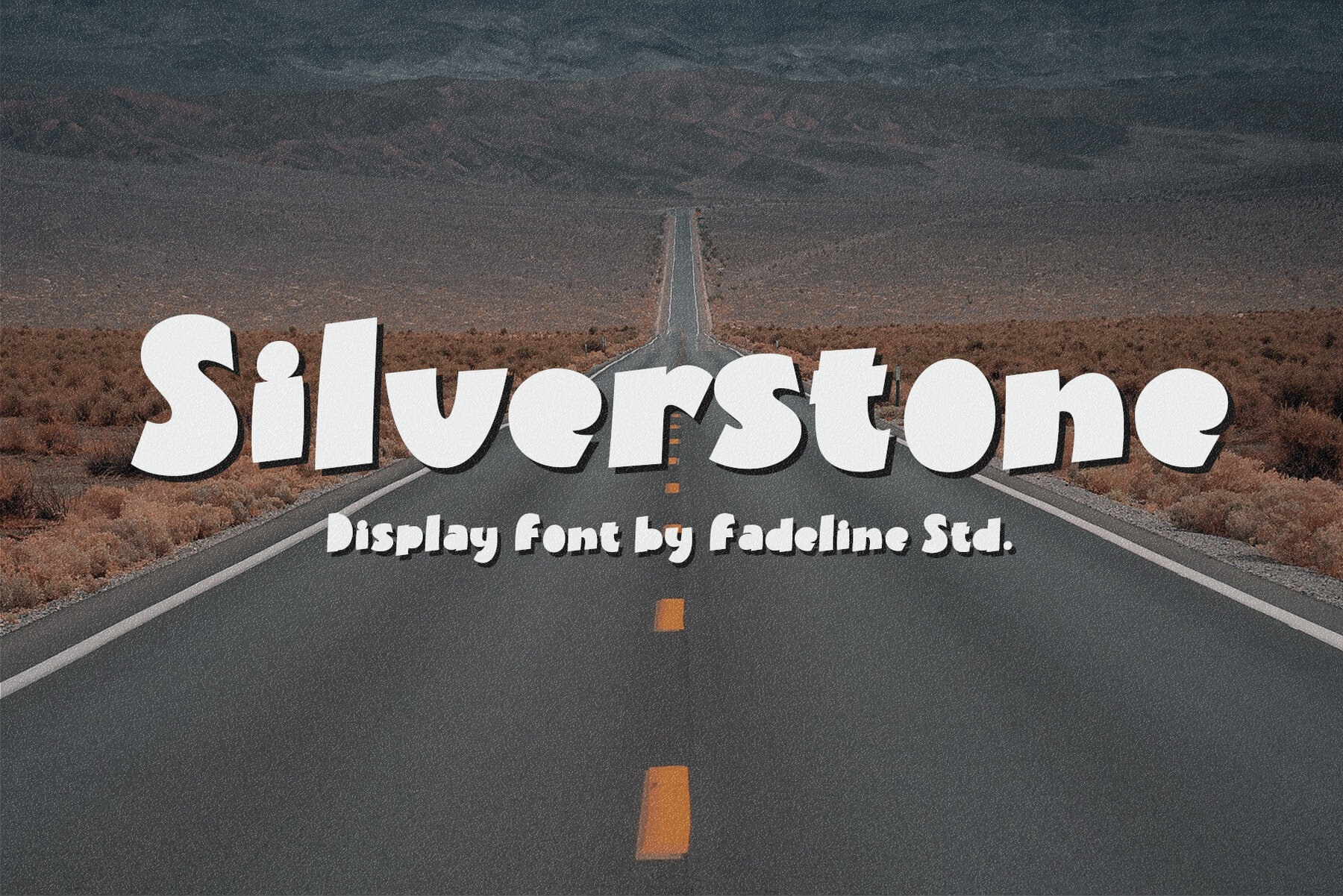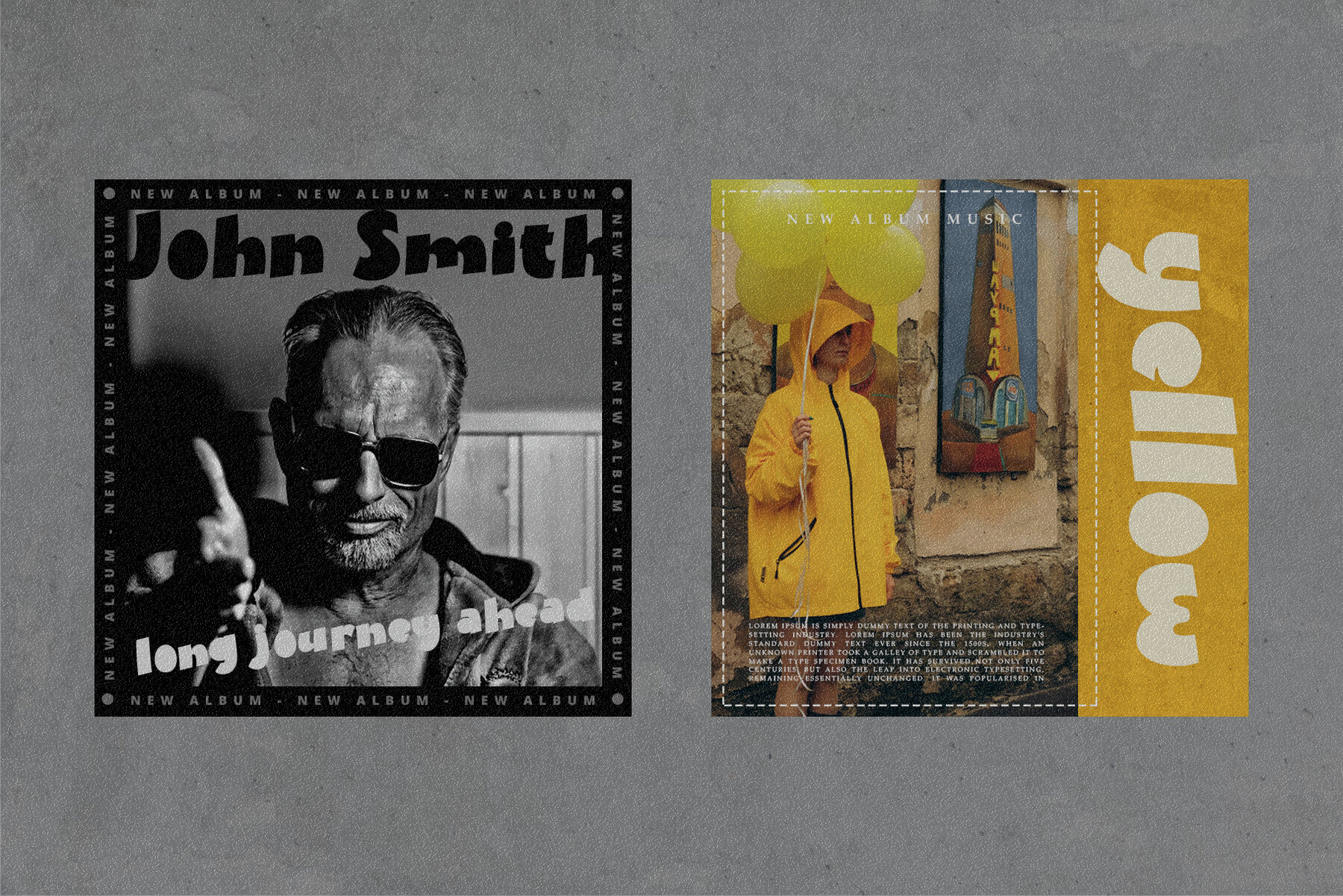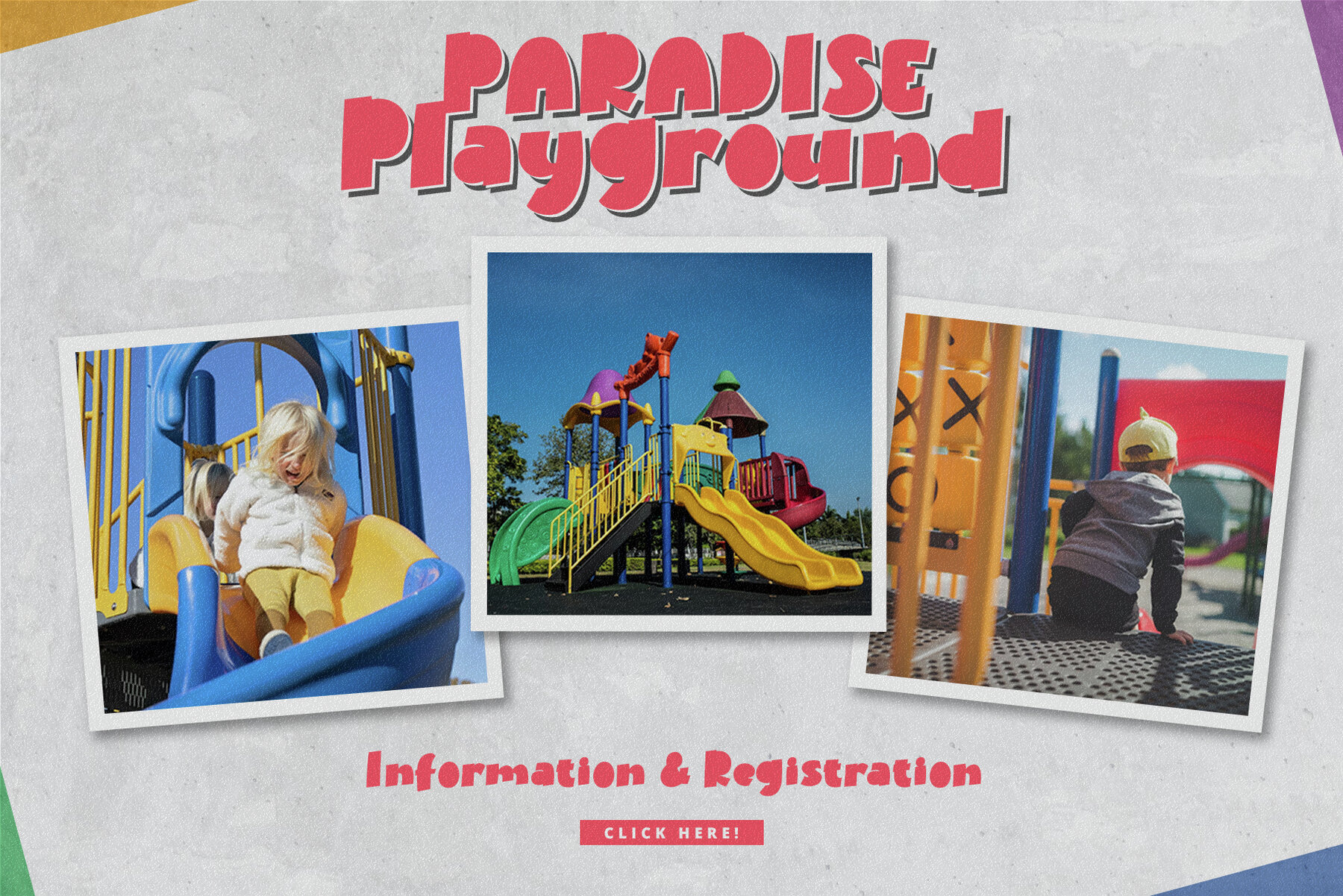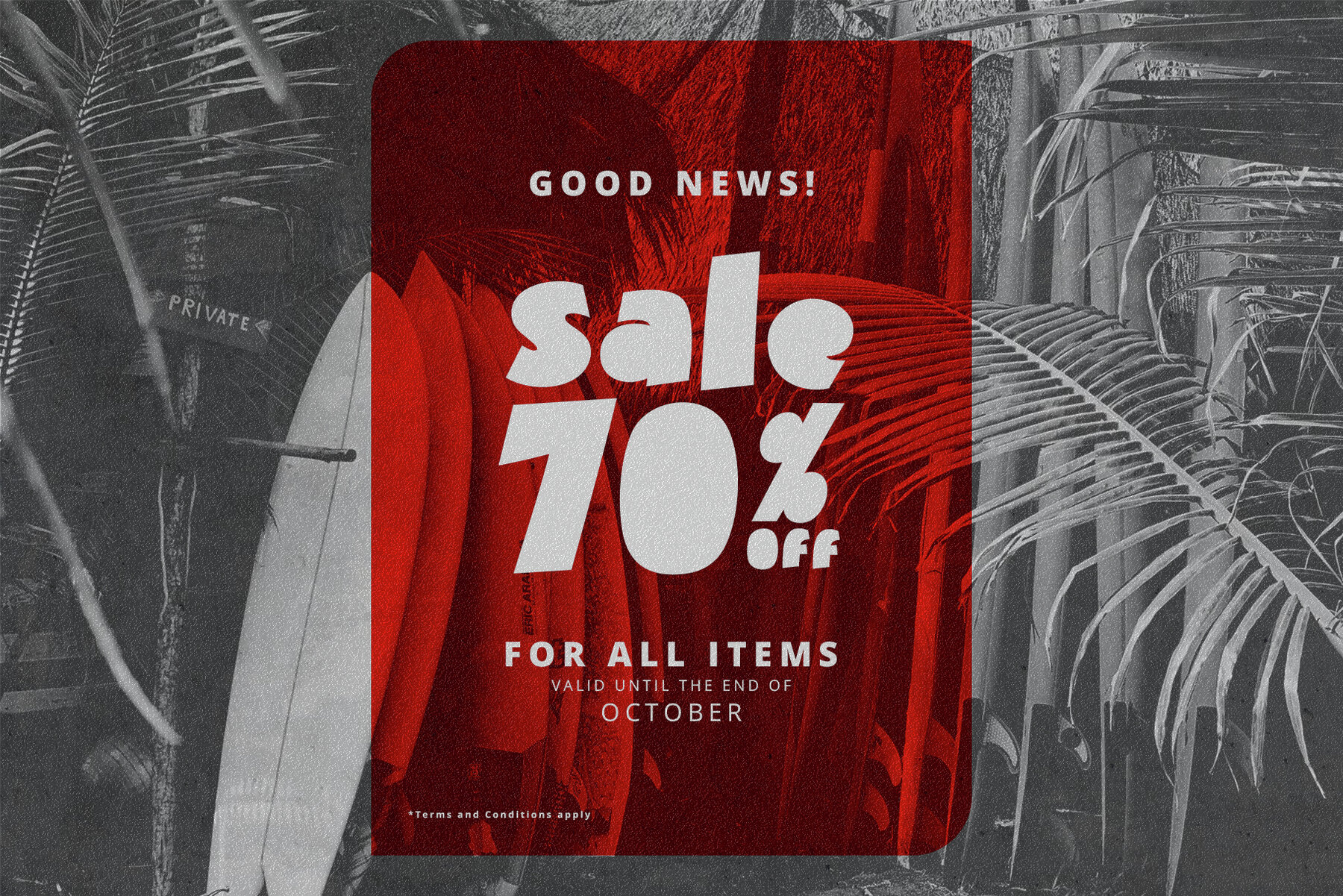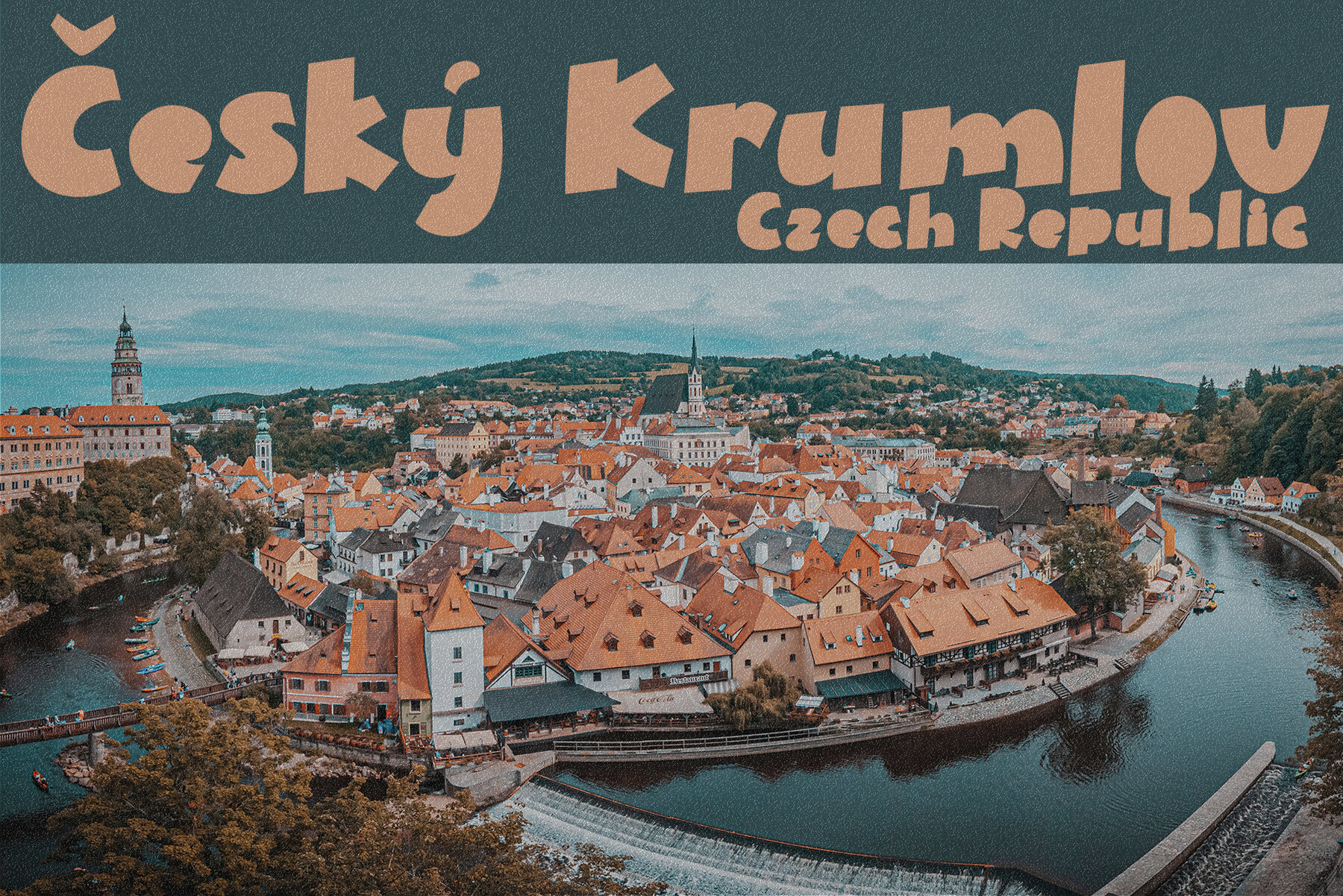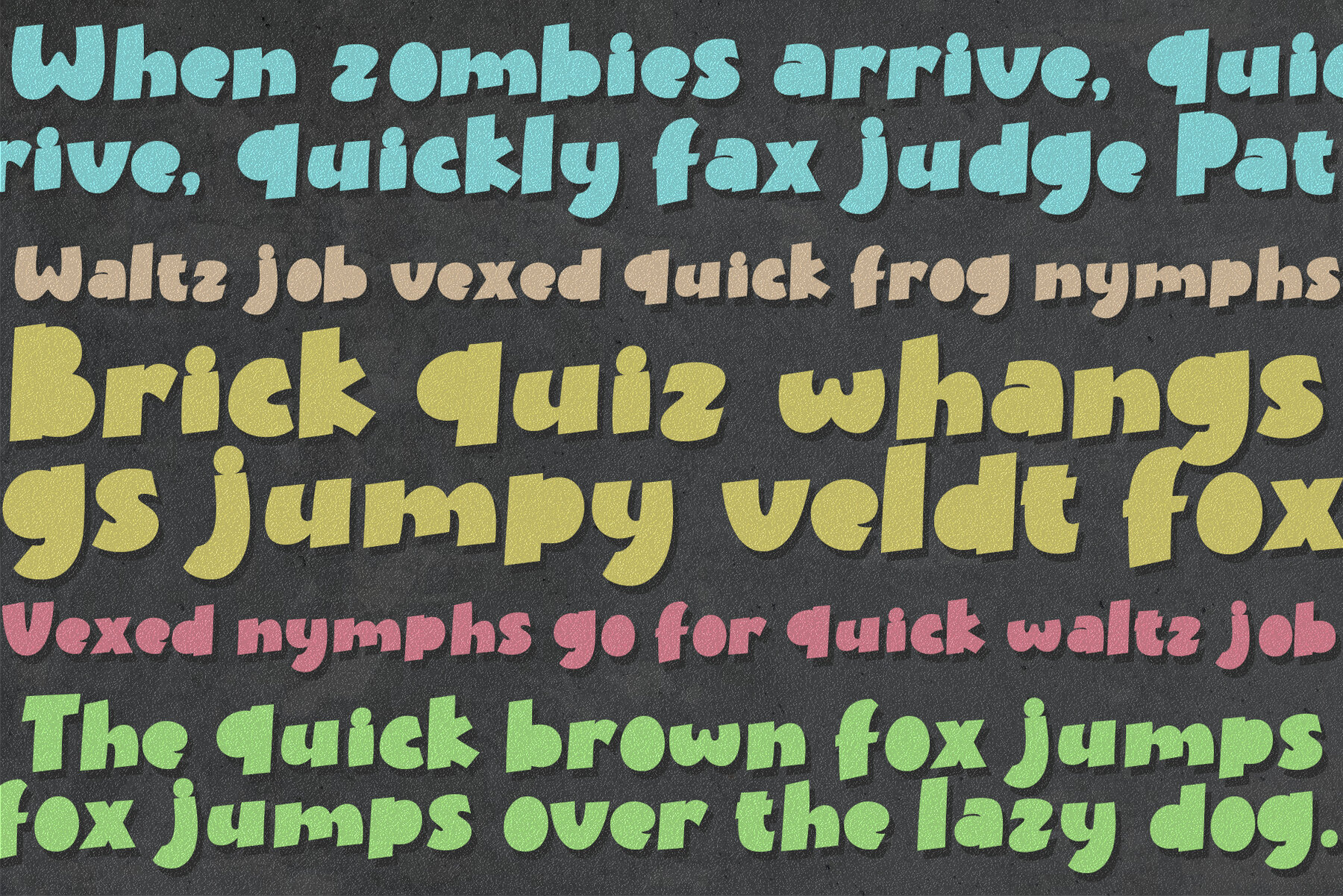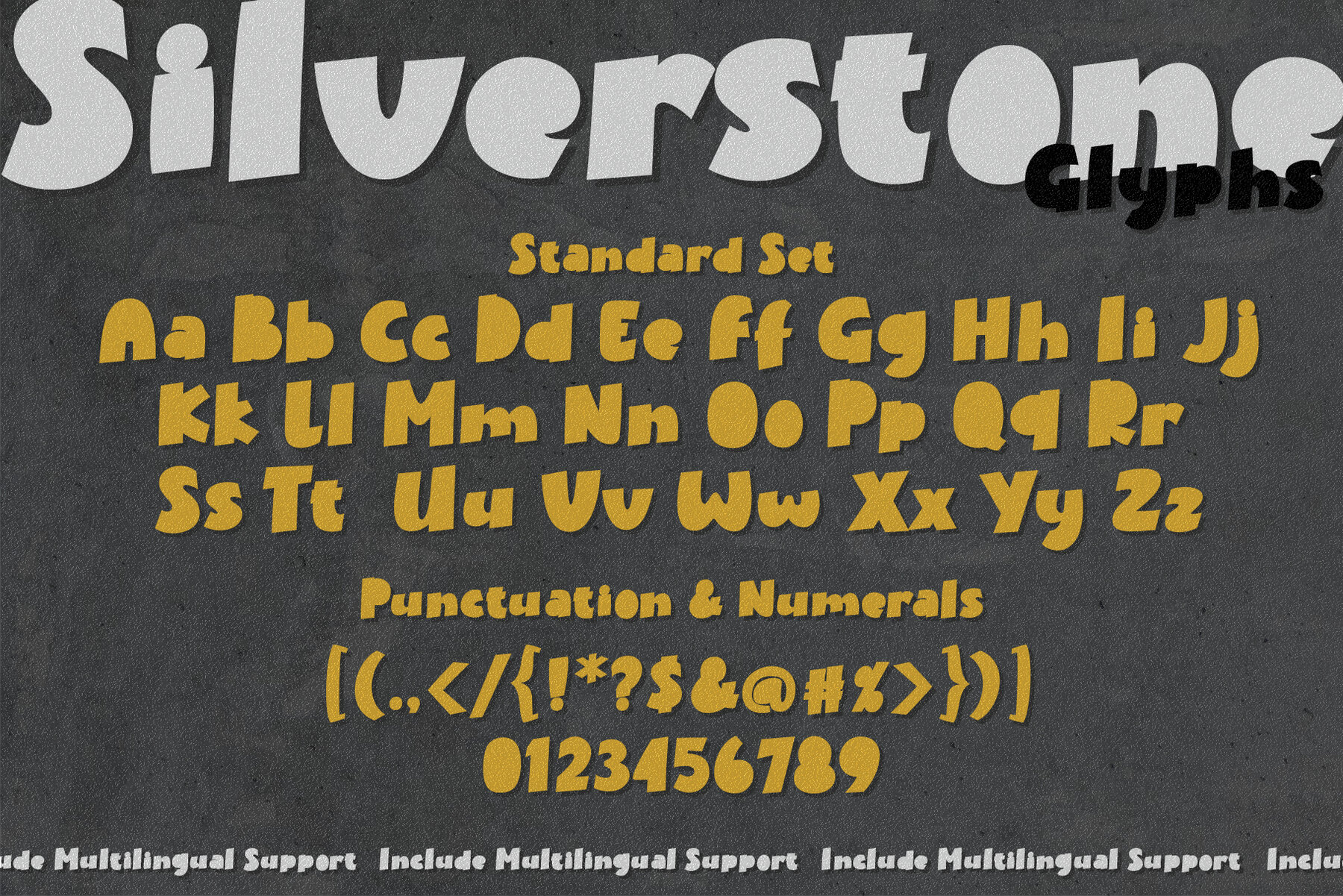
Silverstone Font
Silverstone
Silverstone offers a compelling new look with its bold and distinctive style. This display font is meticulously crafted to maintain perfect balance, ensuring a bold presence in every letter. Ideal for a wide range of creative projects, Silverstone makes integrating a strong visual element into your designs both easy and enjoyable.Silverstone Display Font: Bold & Unique Style
Perfect for Diverse Design Needs